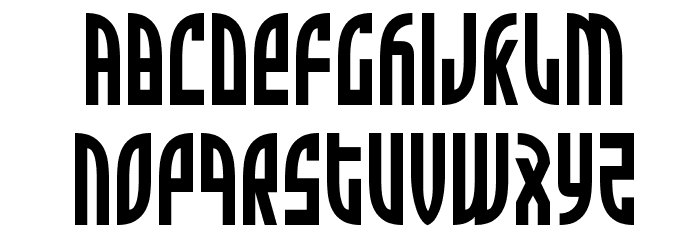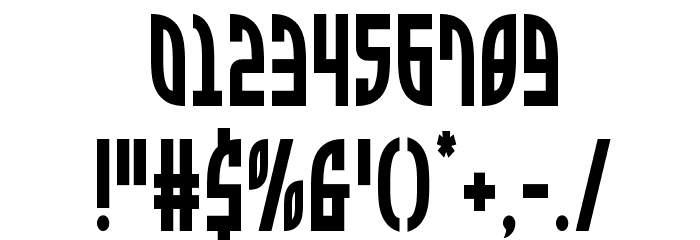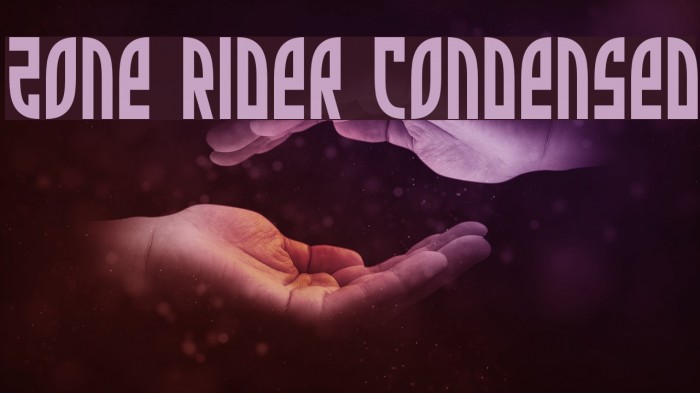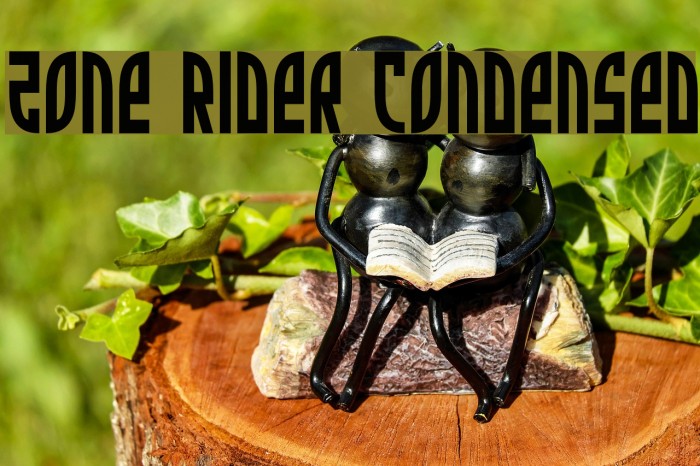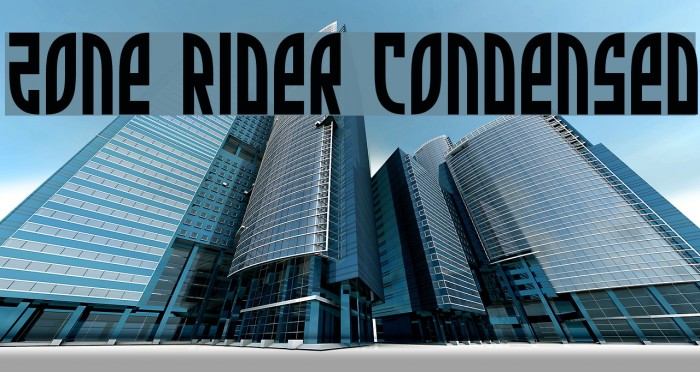
Zone Rider Condensed Font
This font features a bold and condensed style with a futuristic and geometric design. The characters are tall and narrow, with a distinct angularity that gives them a modern and edgy appearance. The uppercase and lowercase letters maintain a consistent height, contributing to a uniform look. The numerals and special characters follow the same design principles, ensuring cohesion across all glyphs. The font's unique style makes it stand out, suitable for projects that require a strong visual impact.
A bold, condensed, and futuristic font with geometric design.
- Proposed Projects: Ideal for sci-fi themed posters, video game titles, branding for tech companies, and modern advertising campaigns.
- Character Spacing: Tight